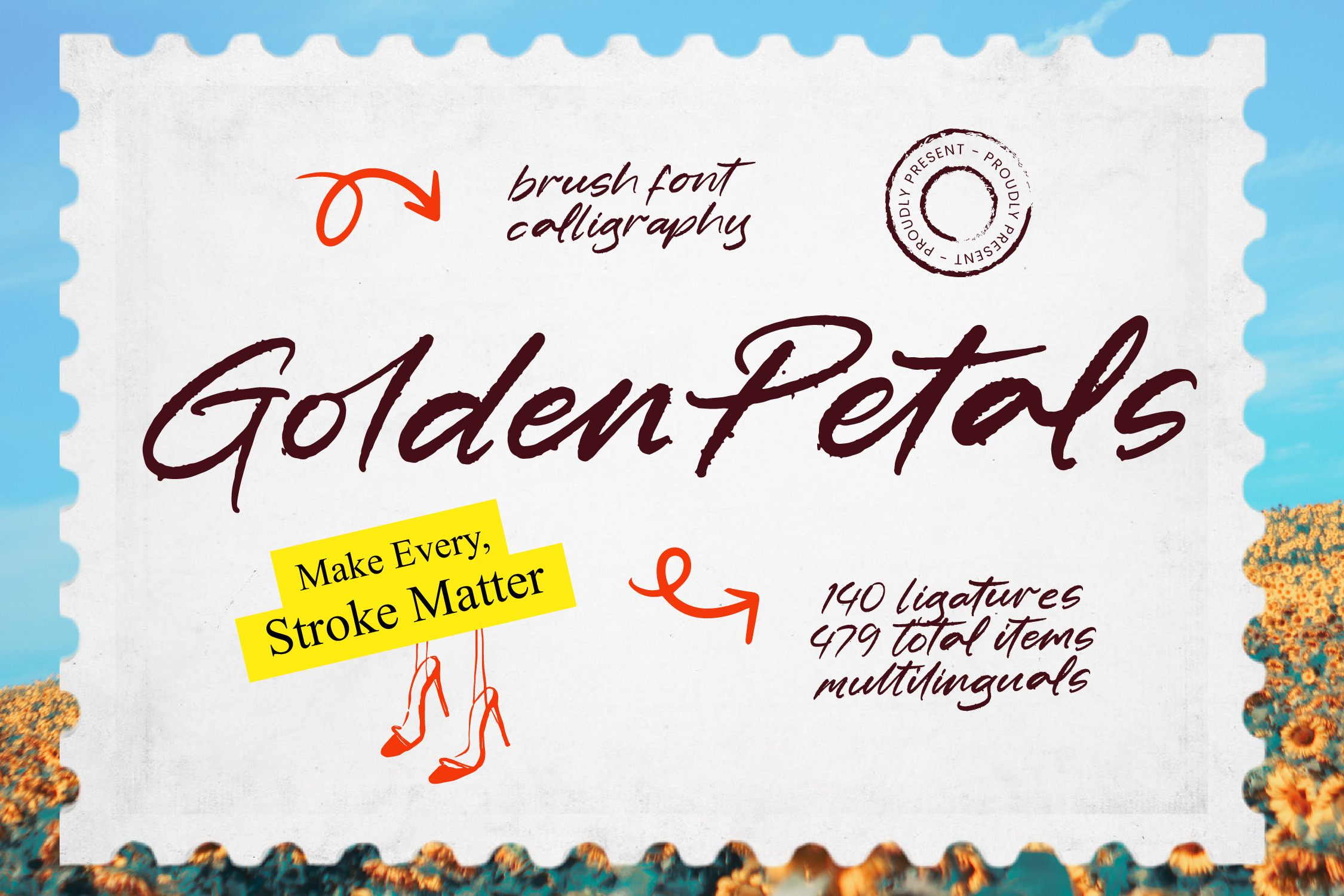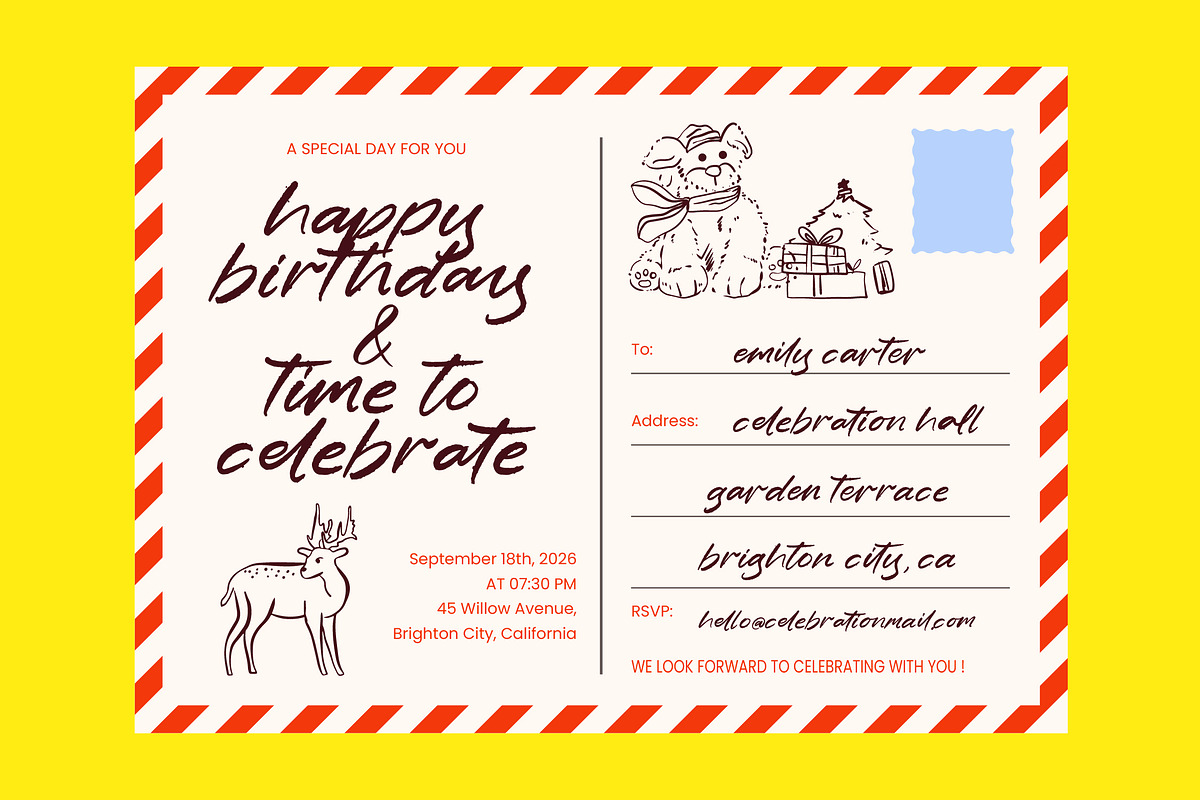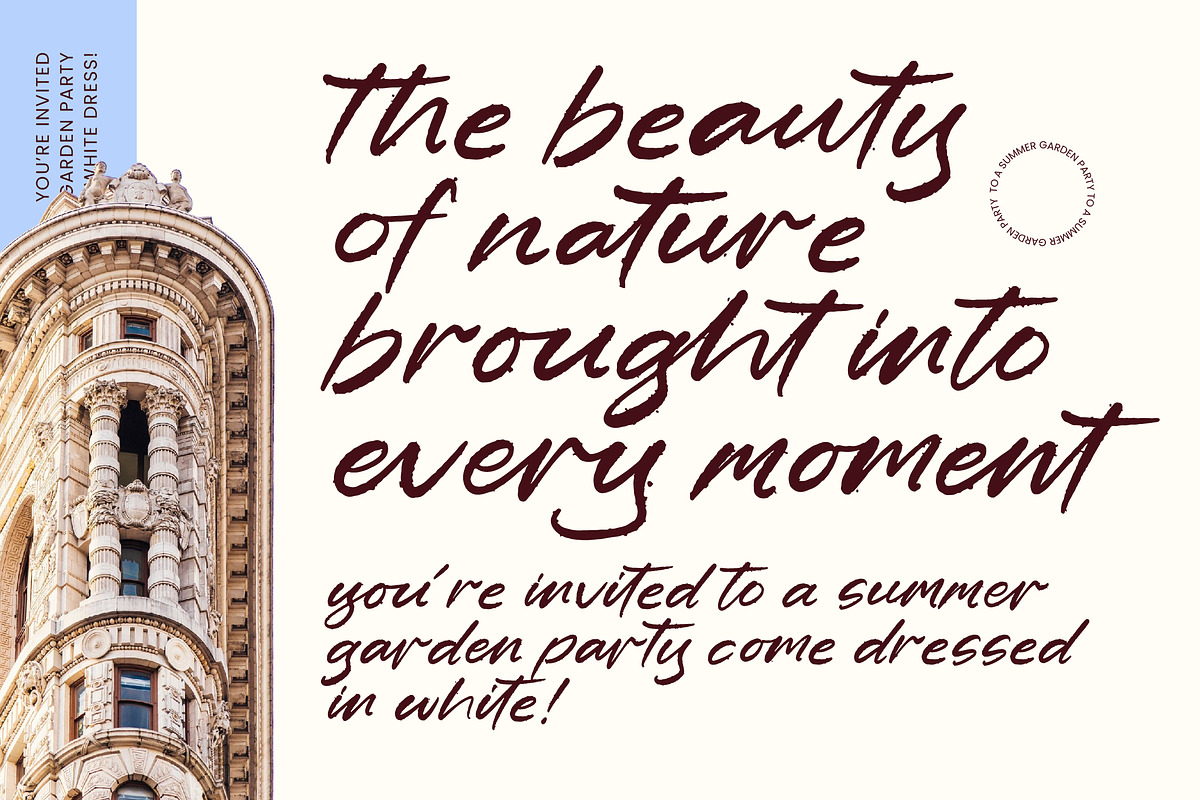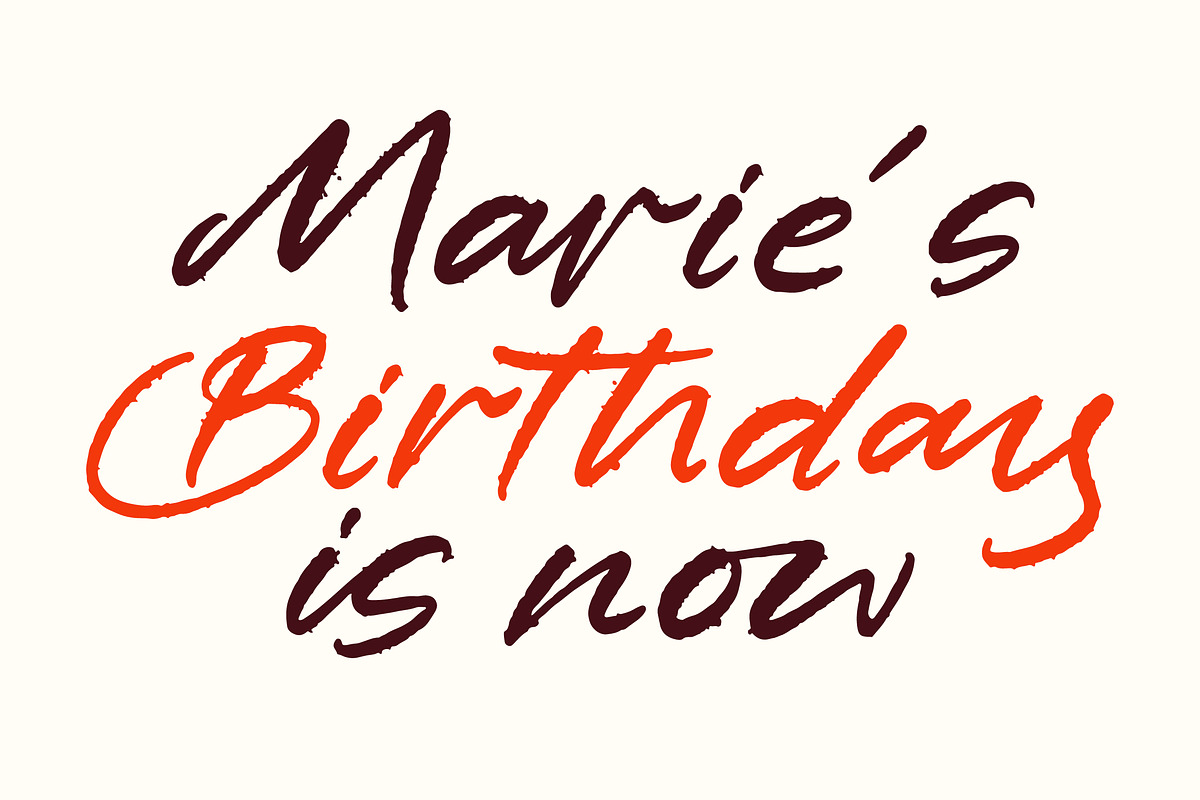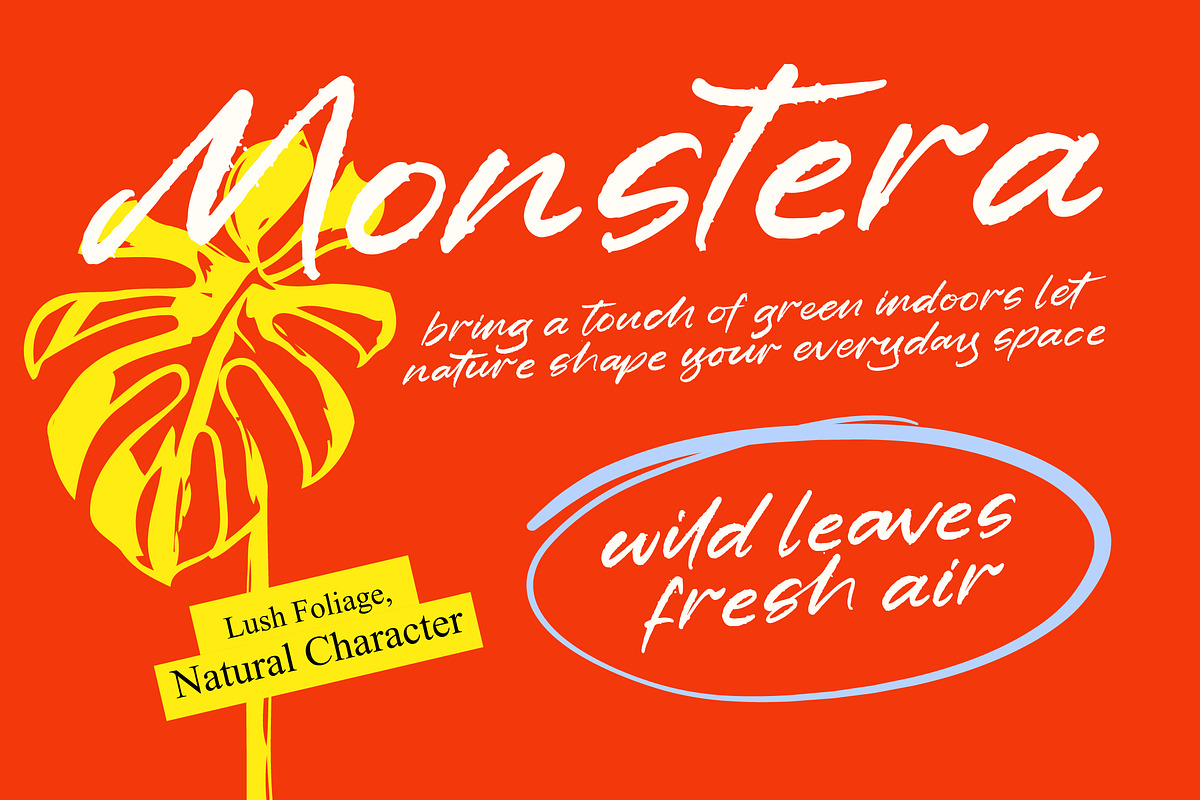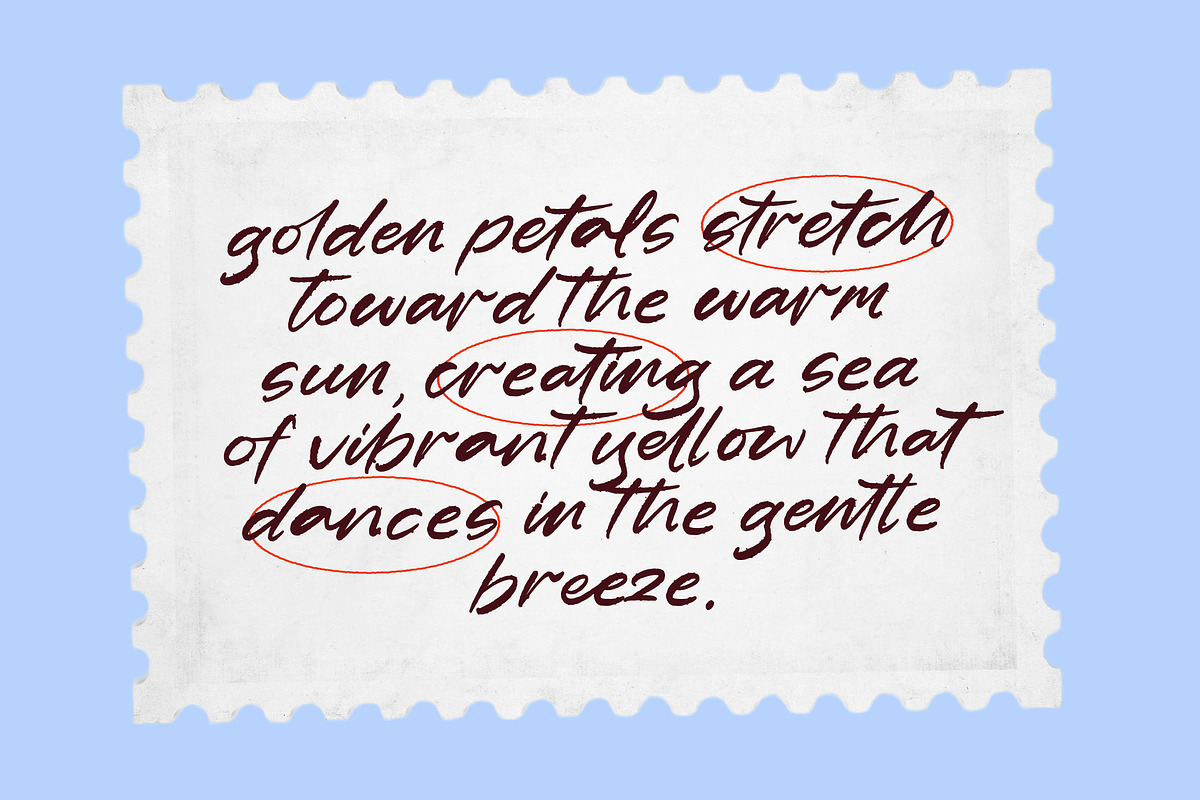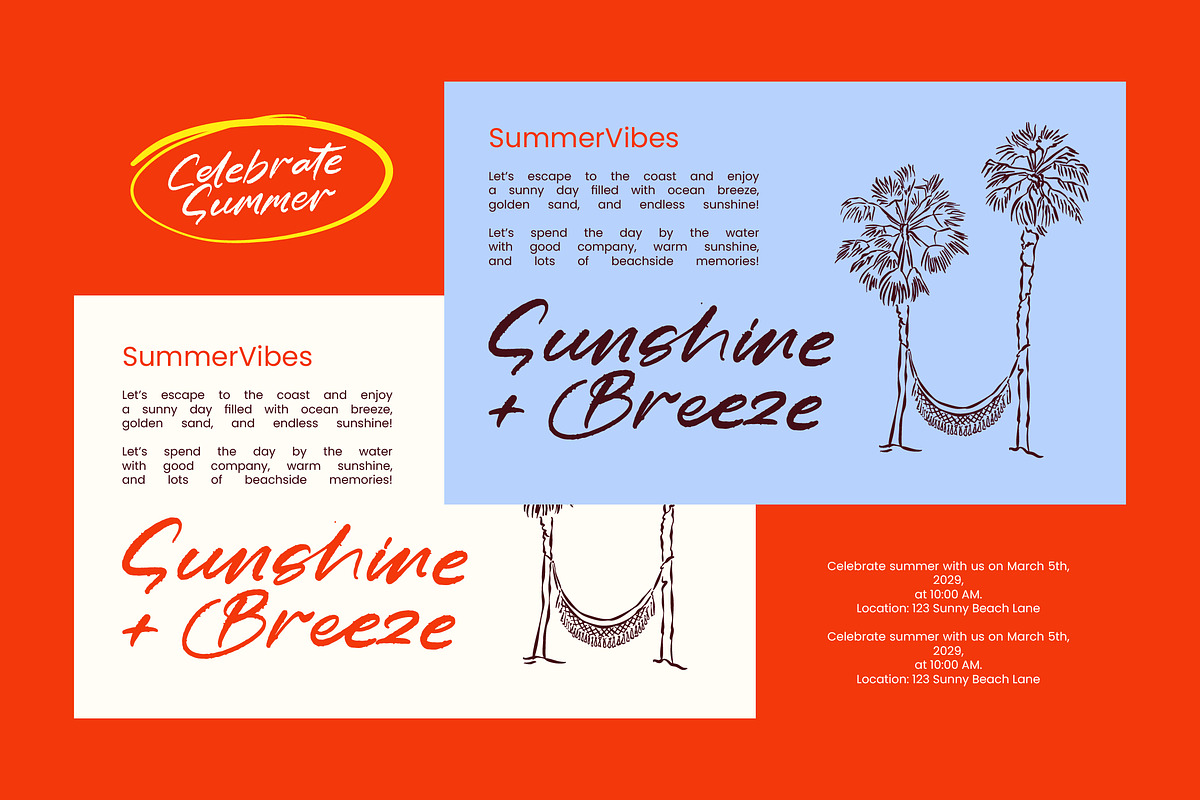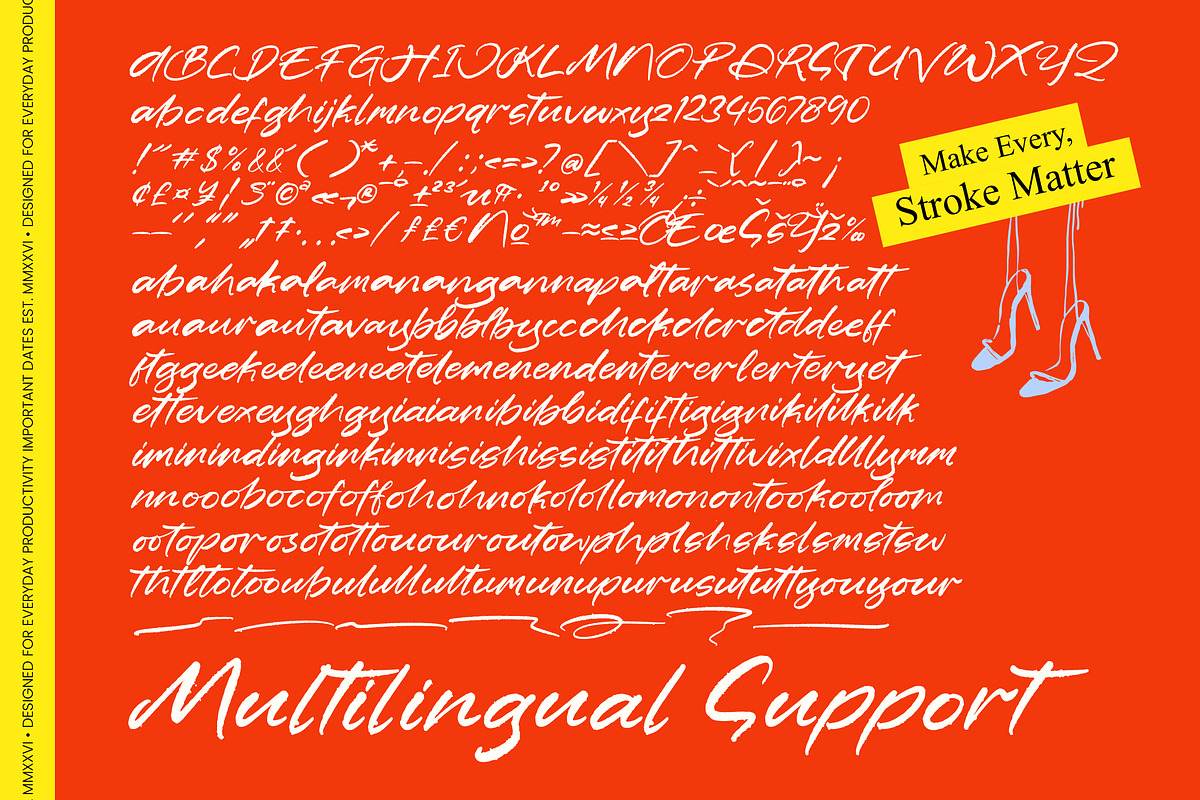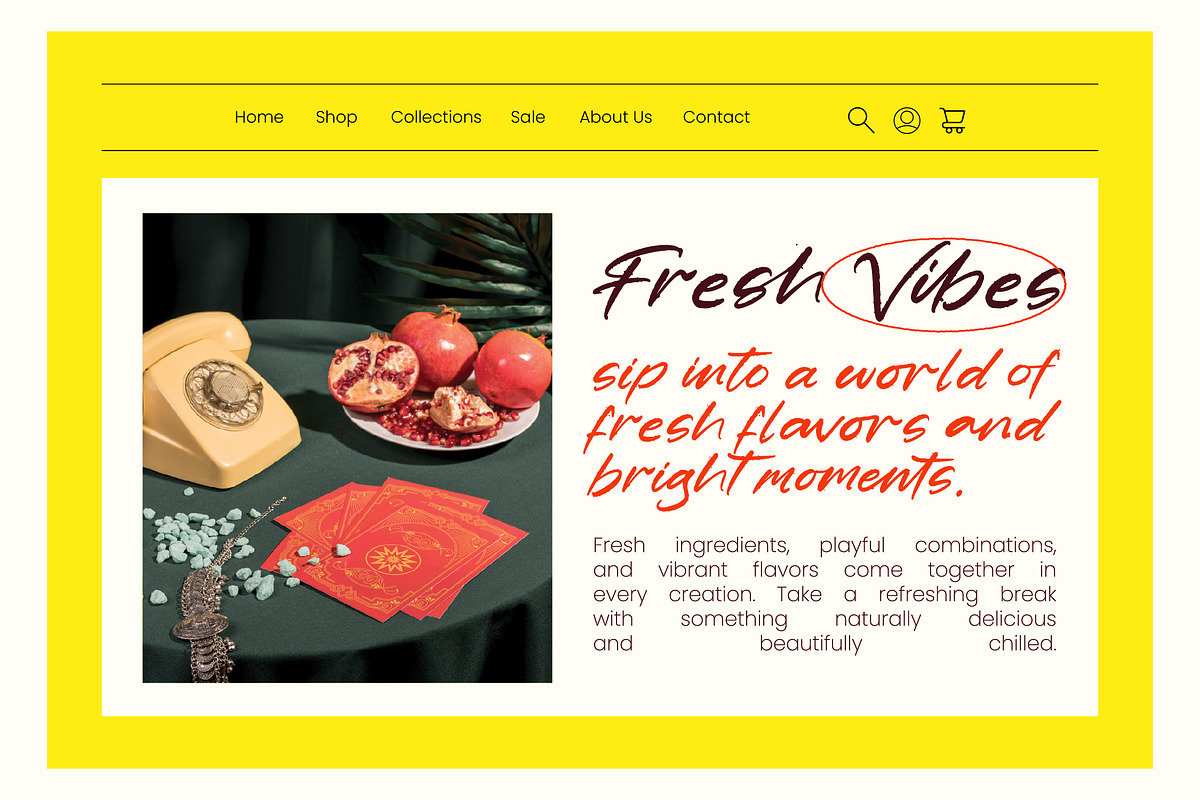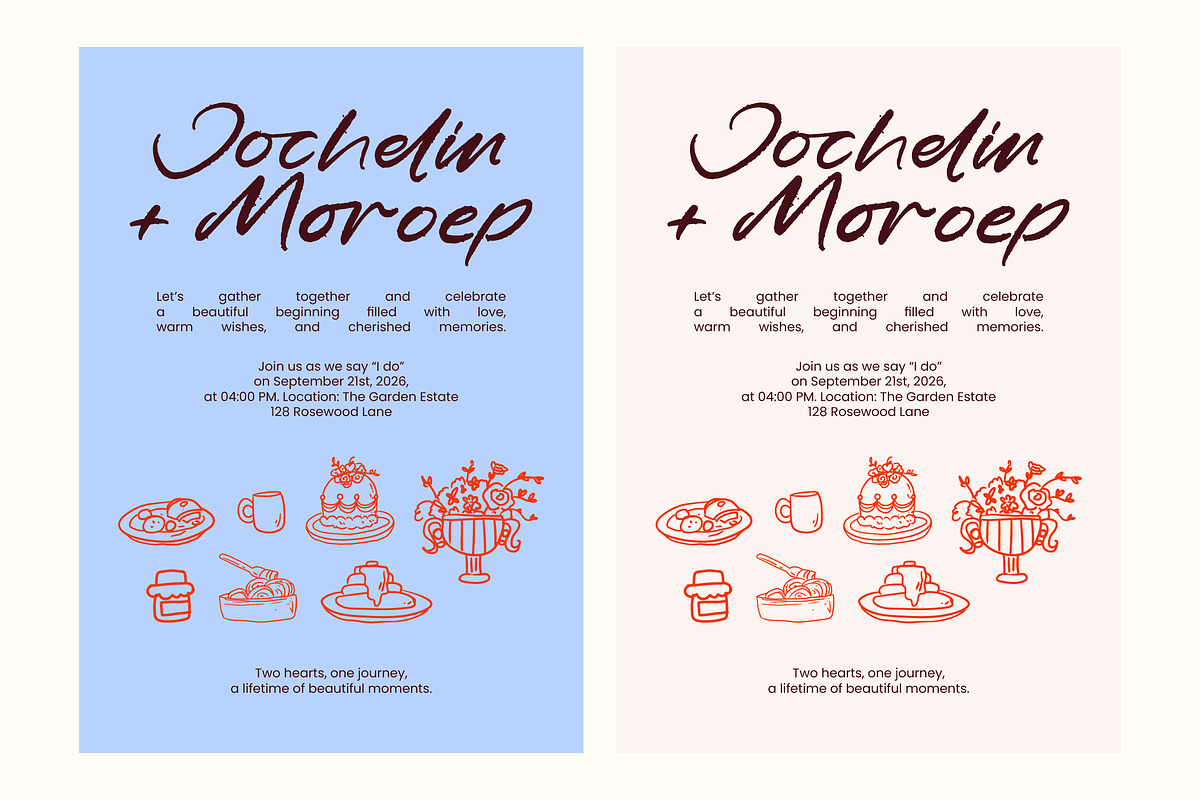
Golden Petals Brush Font Calligraphy
Golden Petals - Brush Font Calligraphy , Elevate your creative vision with a typeface that embodies raw elegance and artistic flair. Golden Petals - Brush Font Calligraphy is a masterclass in organic texture and dynamic strokes, offering a hand-drawn aesthetic that feels both personal and professional. By blending expressive calligraphy with a refined contemporary edge, this font ensures that every headline commands attention. Its natural flow and authentic brushwork provide a unique personality that sets your designs apart from generic digital scripts.
Precision-engineered for high-impact visual storytelling, this font is the ultimate tool for modern designers. Golden Petals - Brush Font Calligraphy is perfect for luxury branding, high-end packaging design, and sophisticated editorial layouts. Whether you are crafting a standout logo for a boutique brand or designing invitation suites for exclusive events, its versatile nature adapts to various creative needs. It also excels in social media graphics, lifestyle photography overlays, and fashion advertising, where a touch of handcrafted charm is essential for building brand authenticity.
In an increasingly connected world, your design assets must bridge the gap between diverse cultures and languages. With its extensive multilingual support, Golden Petals - Brush Font Calligraphy adapts seamlessly across global markets, making it incredibly versatile for international projects. Featuring over 140 ligatures and a comprehensive set of 479 total items, this font provides the linguistic flexibility required for multi-region campaigns. This ensures that your brand’s voice remains consistent and impactful, regardless of the geographic location of your target audience.
Transform ordinary text into a captivating visual experience that resonates with your audience. The unrivaled sophistication of Golden Petals - Brush Font Calligraphy lies in its ability to balance bold energy with delicate grace. By choosing this premium typeface, you are investing in a tool that prioritizes visual harmony and professional quality. Make a lasting impression and let your creative projects flourish with the timeless appeal and artistic integrity found only in Golden Petals - Brush Font Calligraphy.